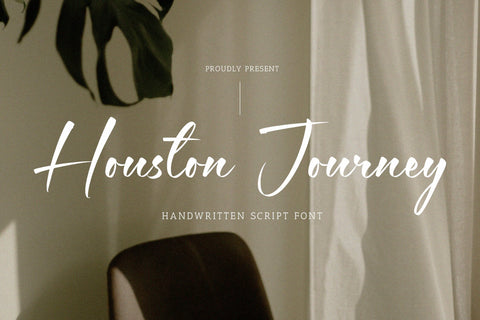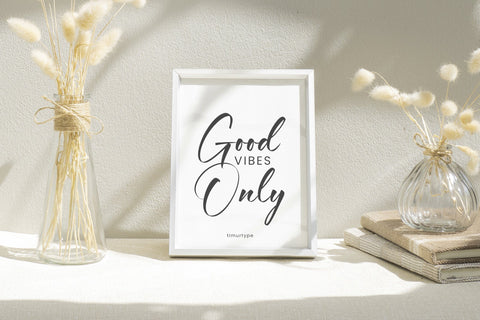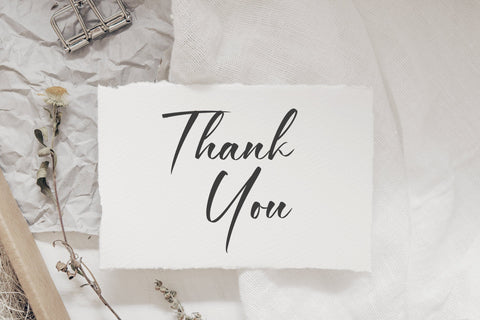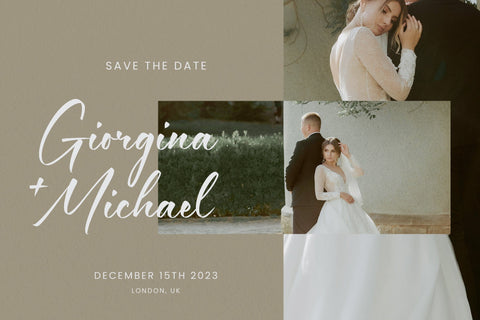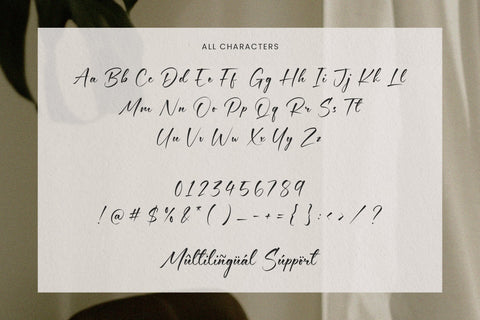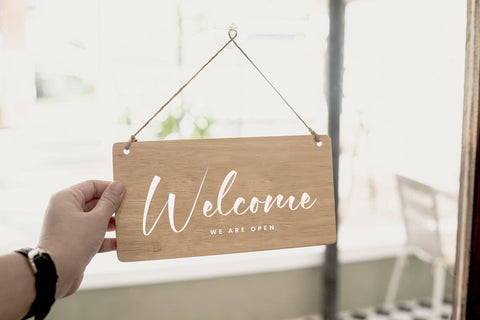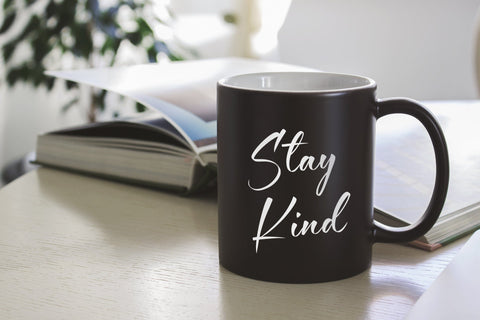
Houston Journey - Handwritten Script font
Proudly Present, Broken White
Broken WhiteA Handwritten Script Font , which was created with great care and specially created for you
Broken White is perfect for product packaging, branding project, megazine, social media, wedding, or just used to express words above the background.
– multilingual support.